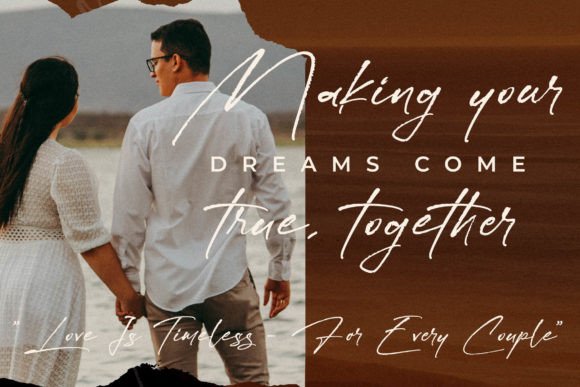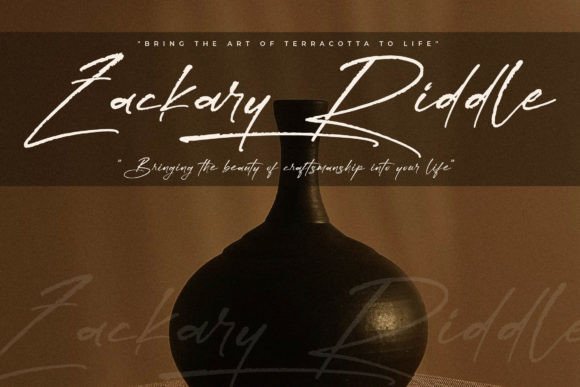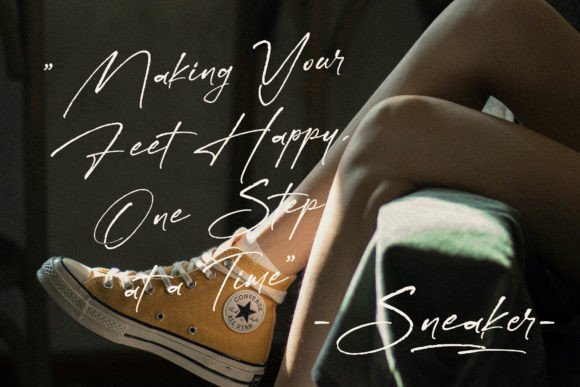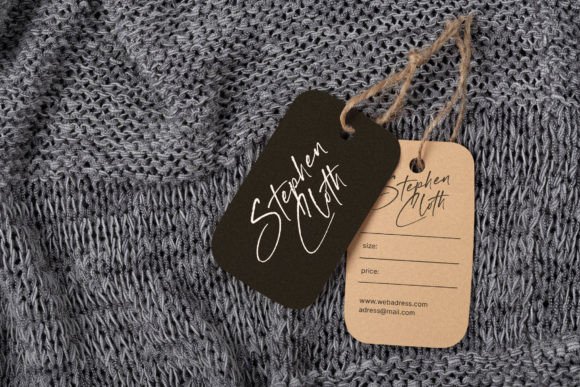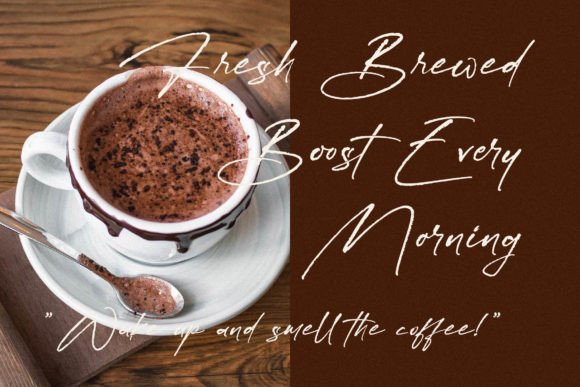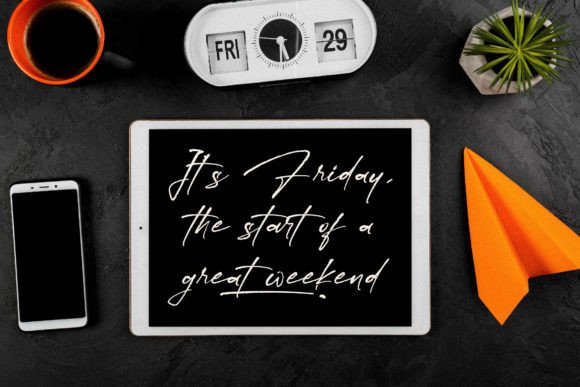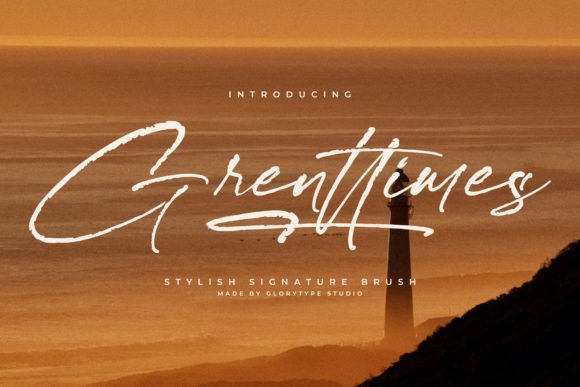
Introducing Grentimes Font: Elevate Your Designs with Elegance and Sophistication
In the world of typography, a good font can make all the difference in creating visually stunning designs. For designers and crafters looking to add a touch of elegance and sophistication to their projects, Grentimes Font is an excellent choice. This beautiful, modern signature script font is designed to help you create gorgeous and classy compositions that will leave a lasting impression.
What is Grentimes Font?
Grentimes is a graceful, modern signature script font that boasts a beautiful rhythm, making it perfect for a wide range of design applications. Its flowing lines and curves create a sense of movement and fluidity, adding a touch of sophistication to any design. Whether you’re working on branding projects, invitations, web graphics, cards, or any other creative endeavor, Grentimes Font is an excellent choice.
Key Features of Grentimes Font
- Graceful and Modern Design: Grentimes Font features a beautiful, modern signature script design that is both elegant and sophisticated.
- Beautiful Rhythm: The font’s flowing lines and curves create a sense of movement and fluidity, making it perfect for creating gorgeous and classy compositions.
- Versatile: Grentimes Font is suitable for a wide range of design applications, including branding projects, invitations, web graphics, cards, and more.
- Ease of Use: The font is easy to read and works well in both digital and print formats.
Uses of Grentimes Font
Grentimes Font is an incredibly versatile font that can be used in a variety of design applications. Here are some ideas to get you started:
- Branding Projects: Use Grentimes Font to create stunning logos, business cards, and letterheads that exude elegance and sophistication.
- Invitations: Create beautiful wedding invitations, birthday cards, and other special occasion invitations with Grentimes Font.
- Web Graphics: Use Grentimes Font to create stunning web graphics, such as social media graphics, banners, and more.
- Cards: Design gorgeous greeting cards, thank-you cards, and postcards with Grentimes Font.
Why Choose Grentimes Font?
With so many fonts available, why choose Grentimes Font? Here are a few reasons why Grentimes Font stands out from the rest:
- Unique Design: Grentimes Font features a unique and beautiful design that will set your designs apart from the rest.
- High-Quality: The font is of high quality, making it perfect for both digital and print applications.
- Ease of Use: Grentimes Font is easy to read and works well in a variety of design applications.
Tips for Using Grentimes Font
Here are a few tips for using Grentimes Font in your designs:
- Use it Sparingly: Use Grentimes Font sparingly to create a sense of elegance and sophistication. Overusing the font can make your design look cluttered and overwhelming.
- Pair it with Other Fonts: Pair Grentimes Font with other fonts to create a unique and visually appealing design.
- Experiment with Colors: Experiment with different colors to find the perfect combination that complements Grentimes Font.
In conclusion, Grentimes Font is a beautiful, modern signature script font that is perfect for designers and crafters looking to add a touch of elegance and sophistication to their designs. With its unique design, high-quality, and ease of use, Grentimes Font is an excellent choice for a wide range of design applications. Whether you’re working on branding projects, invitations, web graphics, cards, or any other creative endeavor, Grentimes Font is sure to help you create stunning designs that will leave a lasting impression.